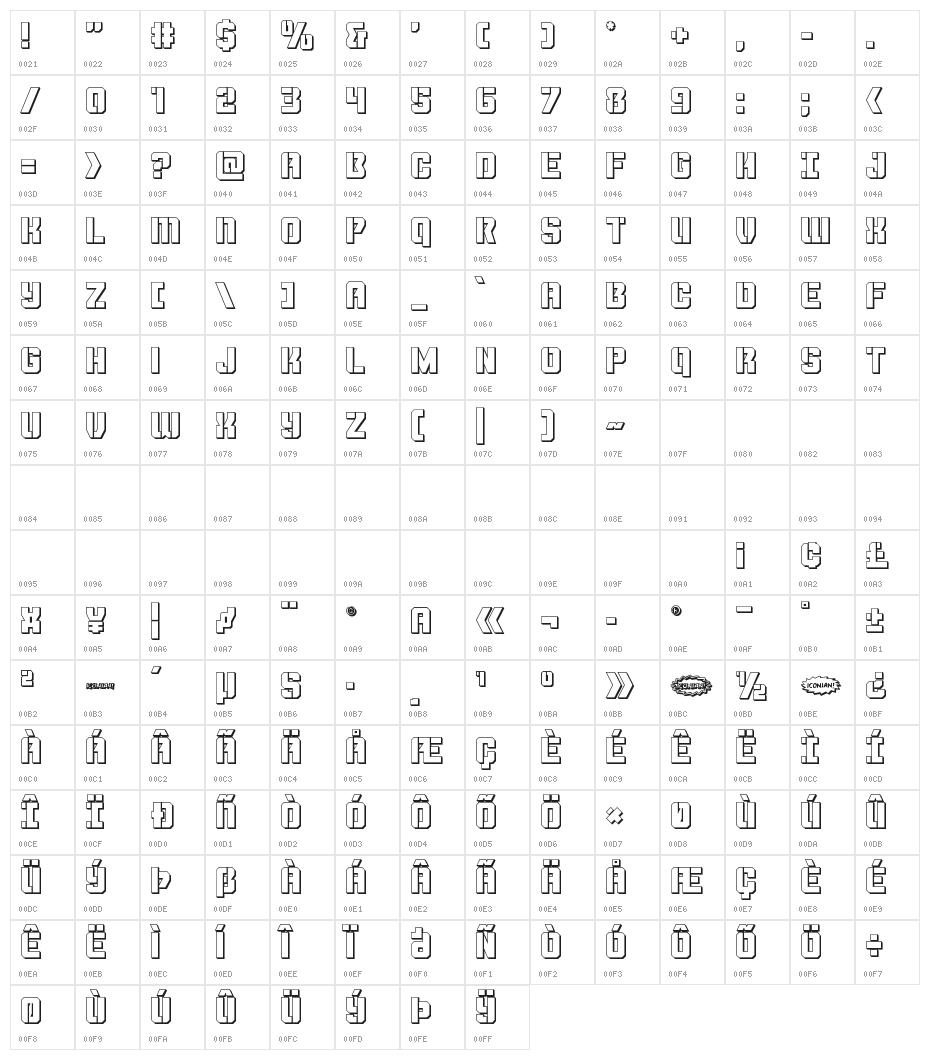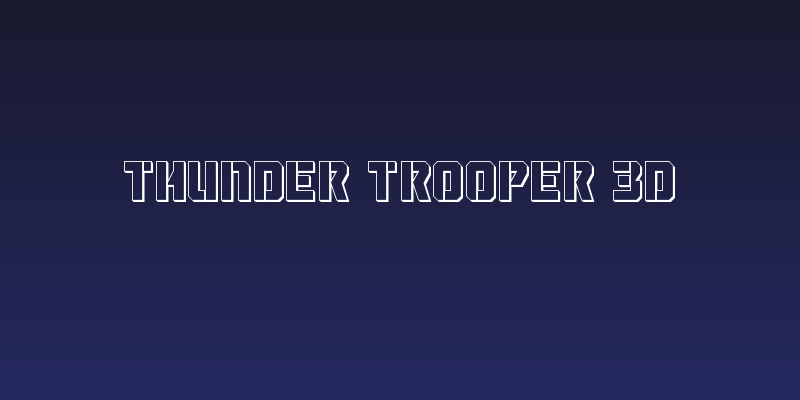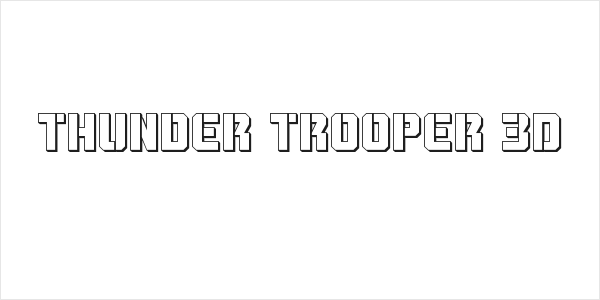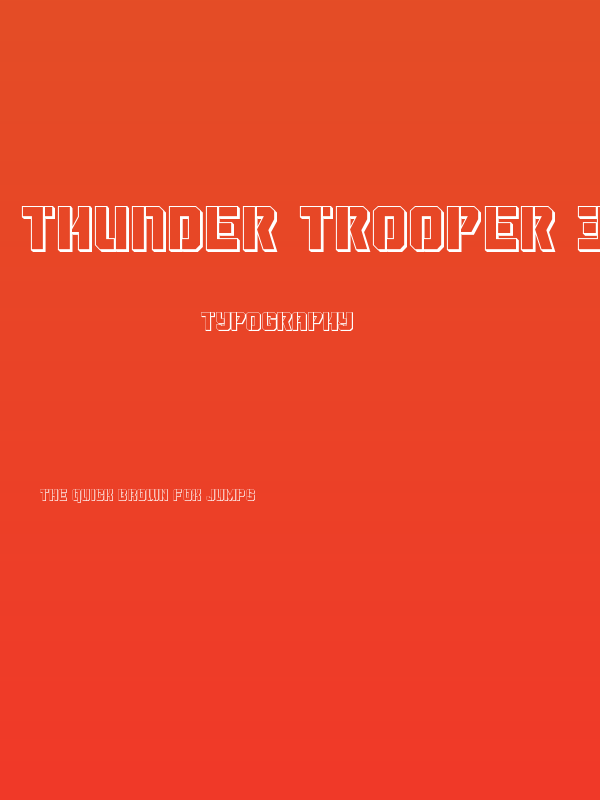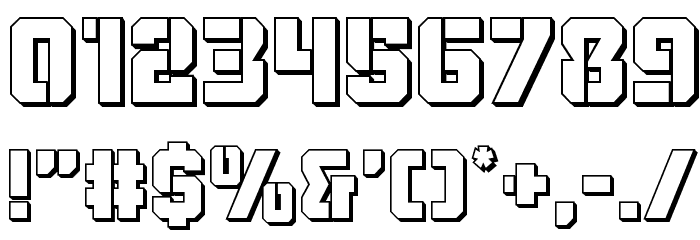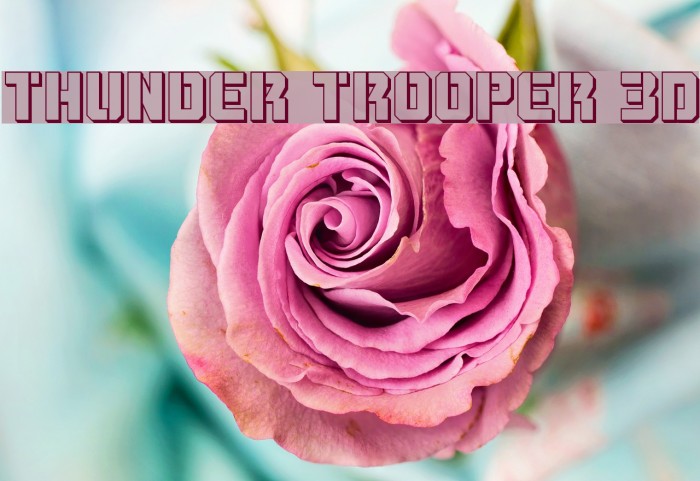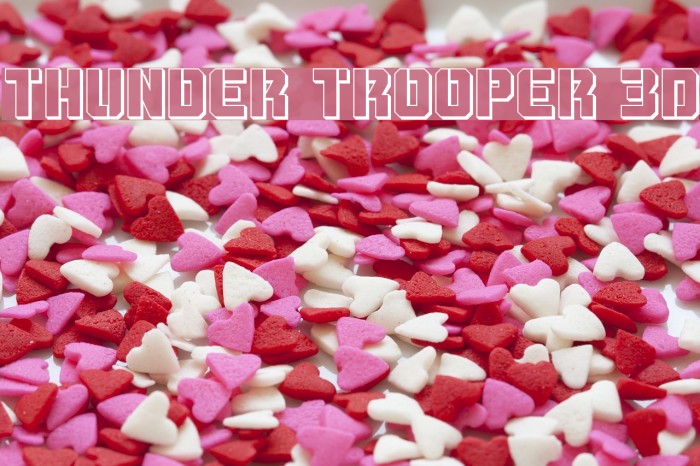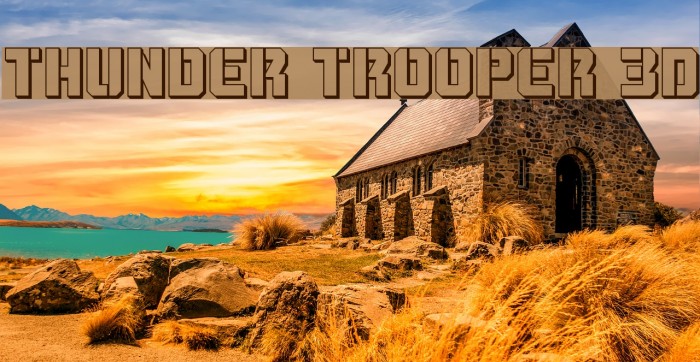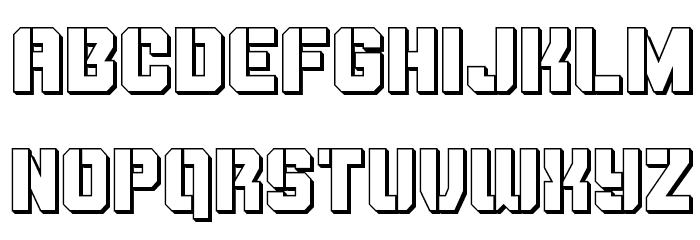
Thunder Trooper 3D Font
Thunder Trooper 3D Description
This font features a bold, three-dimensional block style with a distinct outline that gives each character a strong, impactful presence. The geometric shapes and sharp angles create a futuristic and dynamic appearance, making it stand out in any design. The uppercase letters are uniform in height, while the numbers and special characters maintain the same bold, outlined style. This font is ideal for projects that require a modern and eye-catching look, such as posters, logos, and headlines. Its unique design ensures that it captures attention and conveys a sense of strength and innovation.
| Proposed Projects | Ideal for posters, logos, headlines, and any design needing a modern, eye-catching look. |